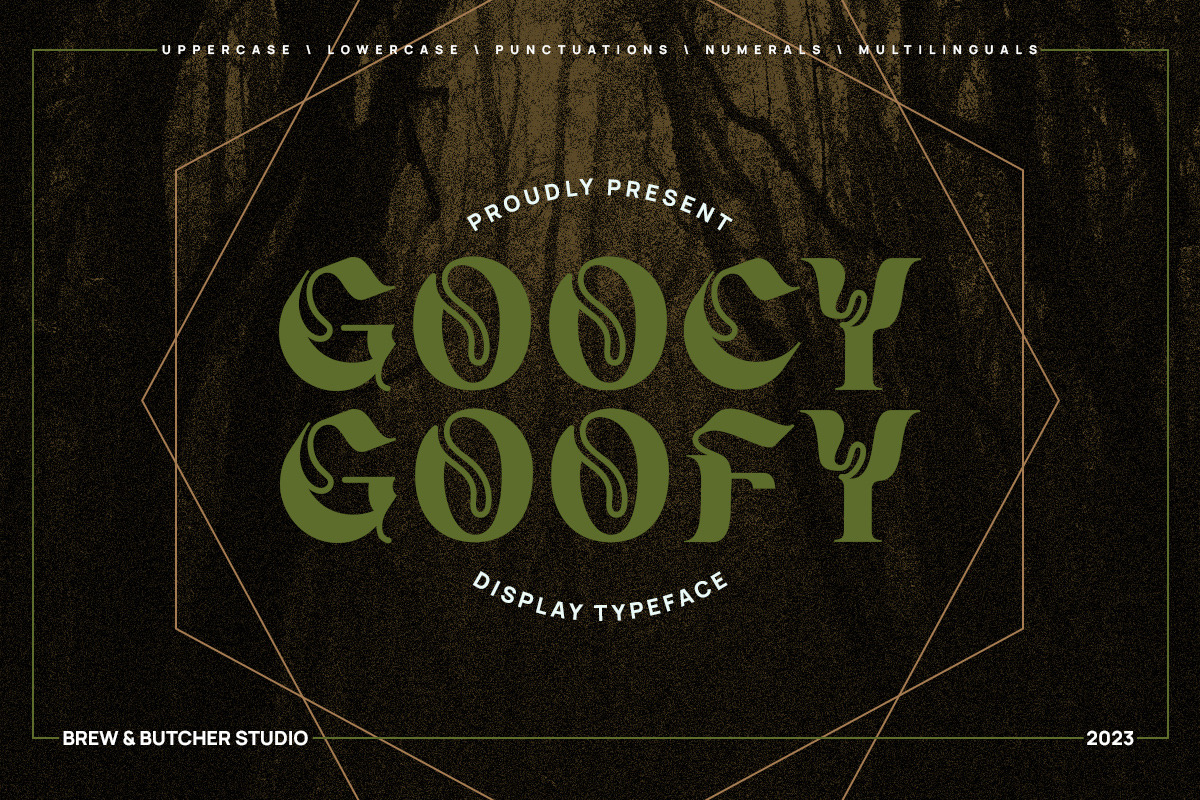
Goocy Goofy | Display Typeface
Goocy Goofy is a font that has a unique character and curved shape. The concept and idea of this font is a depiction of a psychedelic style and identical curves. This font has a slightly spooky and gothic impression, but still gives a bold impression. It has smooth curves and a very attractive firmness of shape. This font is best to use for header or headline, poster, flyer, banner, landingpage, portfolio, name write, album covers, and etc.